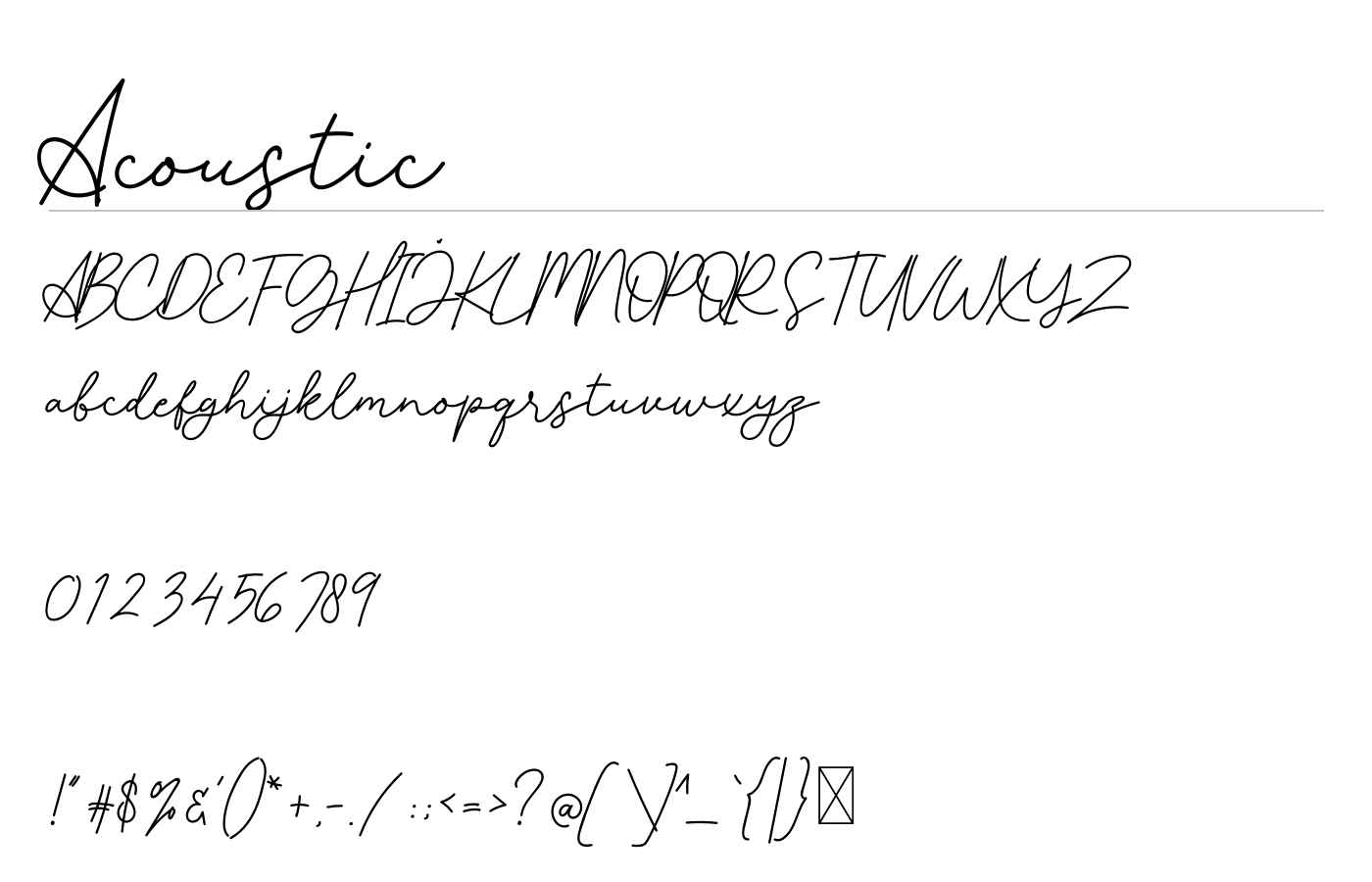
Acoustic is a delicate and elegant handwritten script font with a light weight and flowing, cursive strokes that create a natural, personal touch. Its thin, airy lines and playful yet refined letterforms make it perfect for creative projects, invitations, and branding that seek a warm, approachable, and artistic feel. This font shines in settings where a handcrafted, stylish, and intimate atmosphere is desired.
Acoustic Font
About Acoustic Font